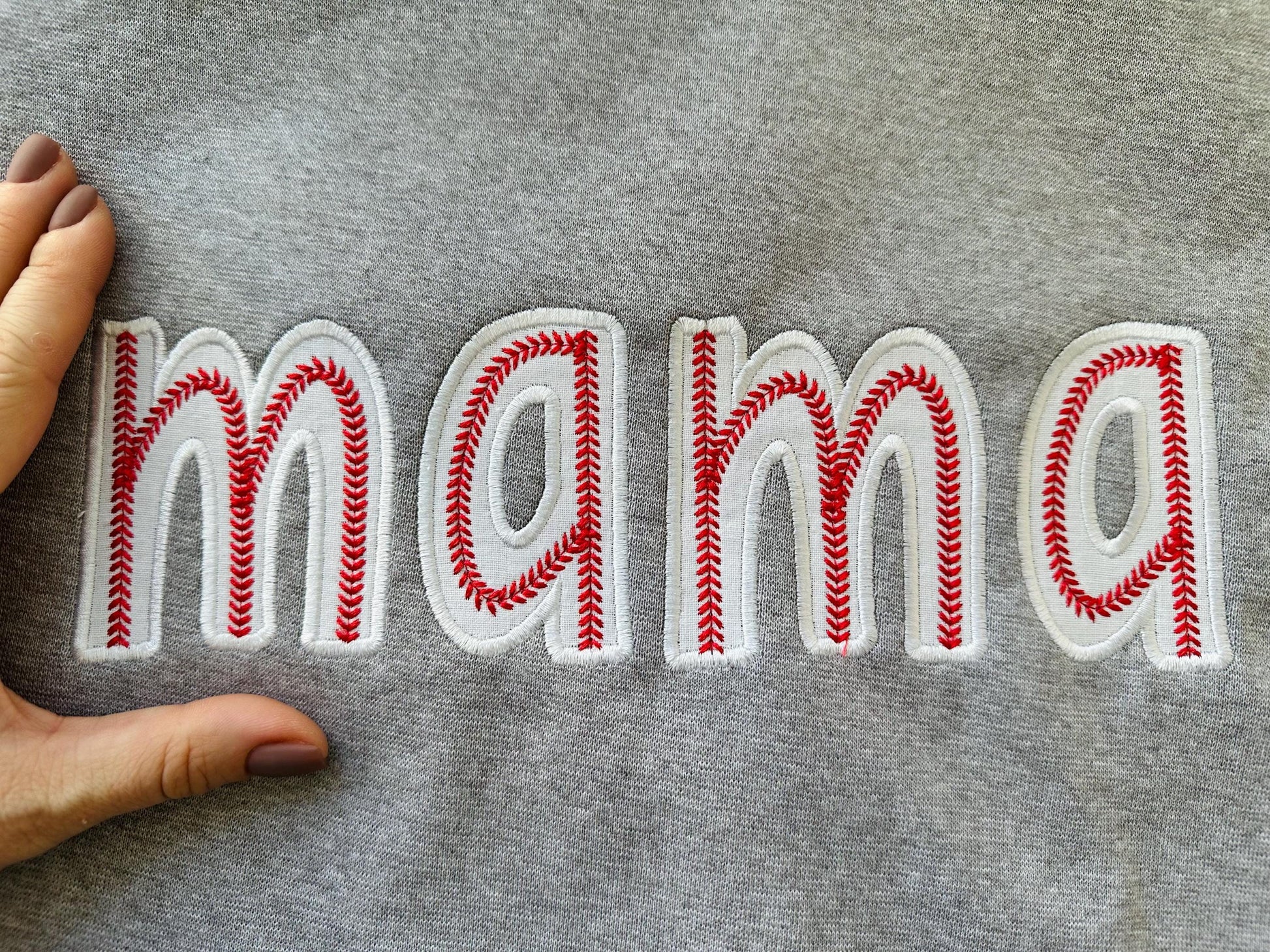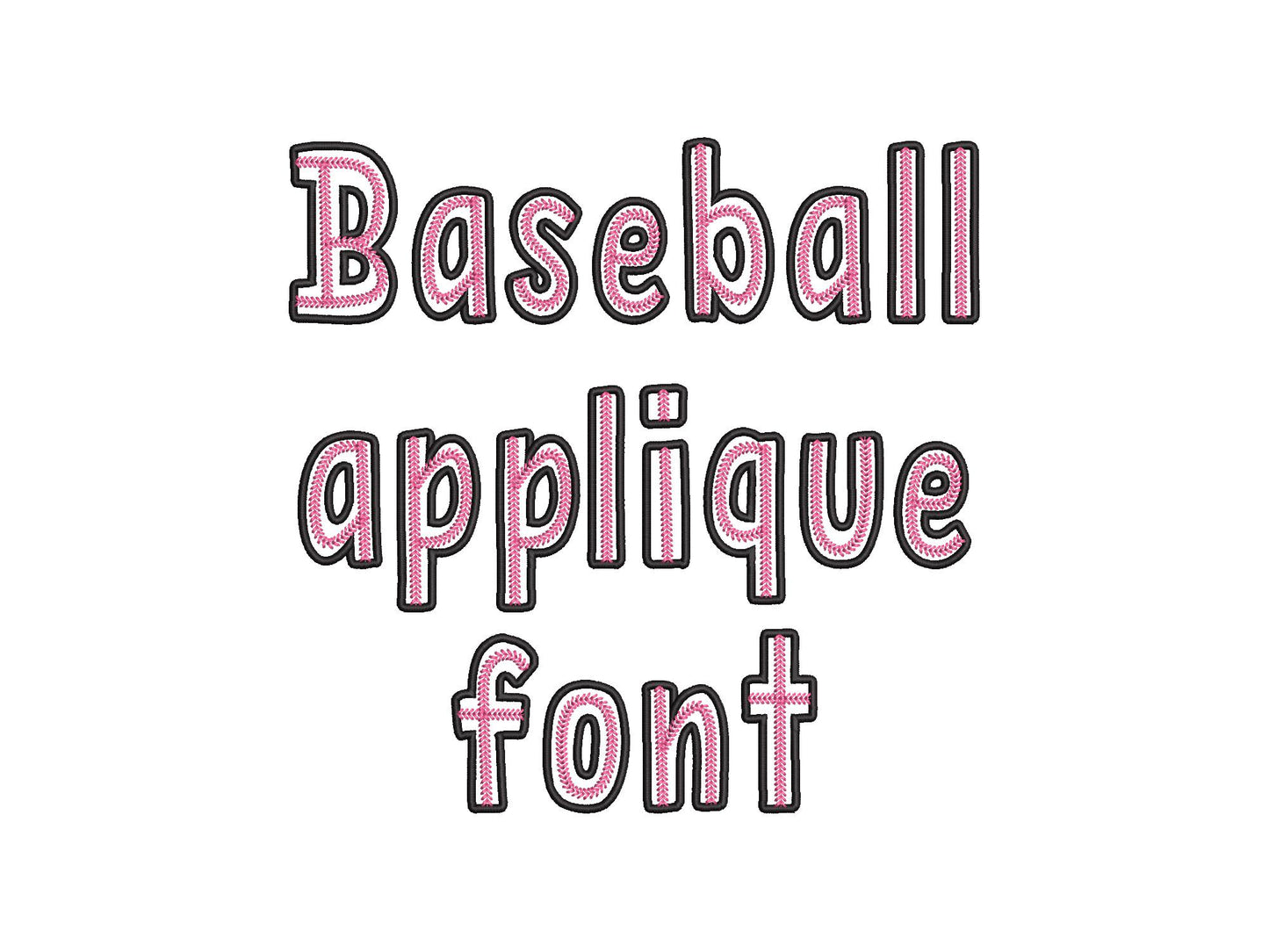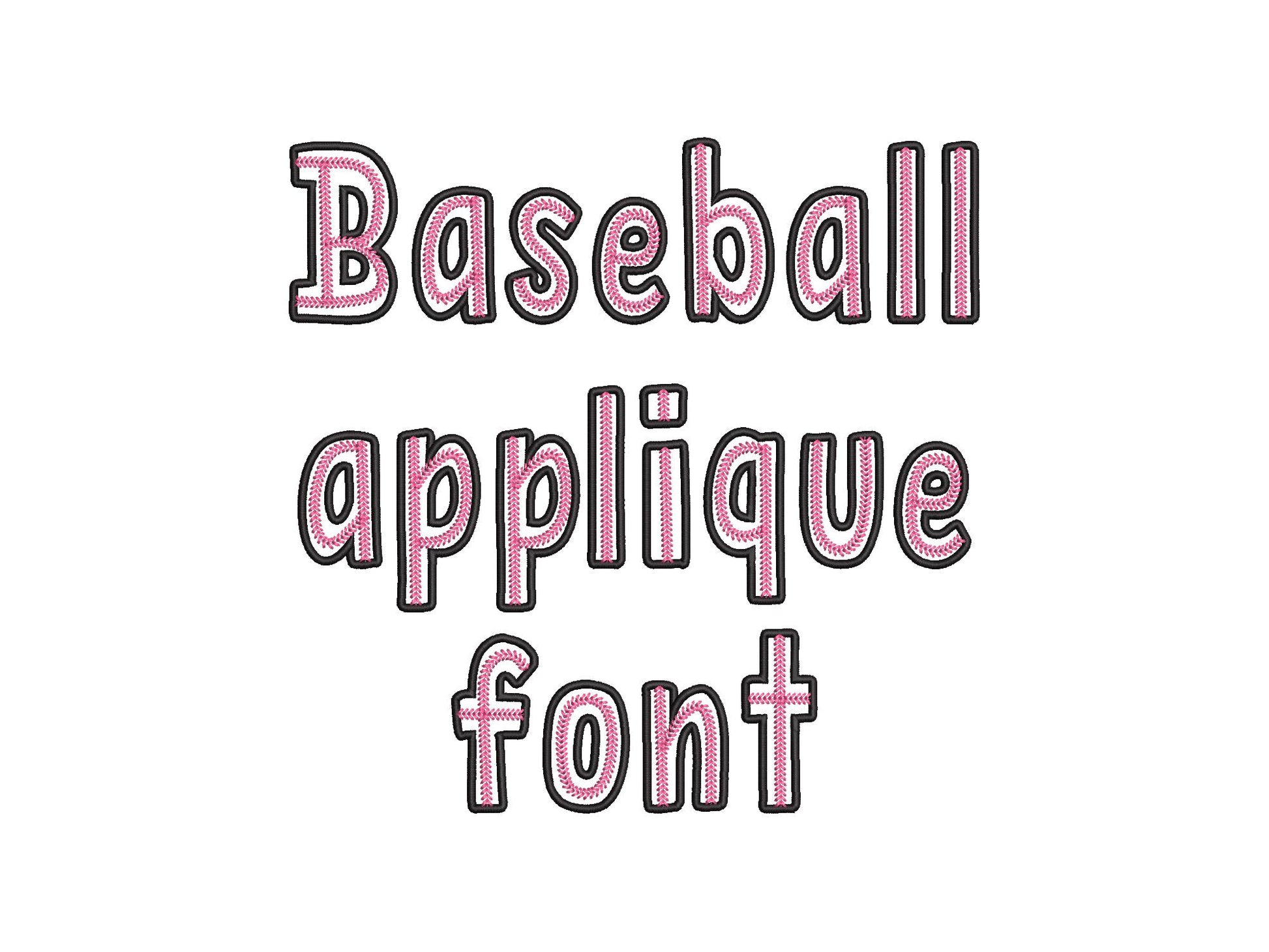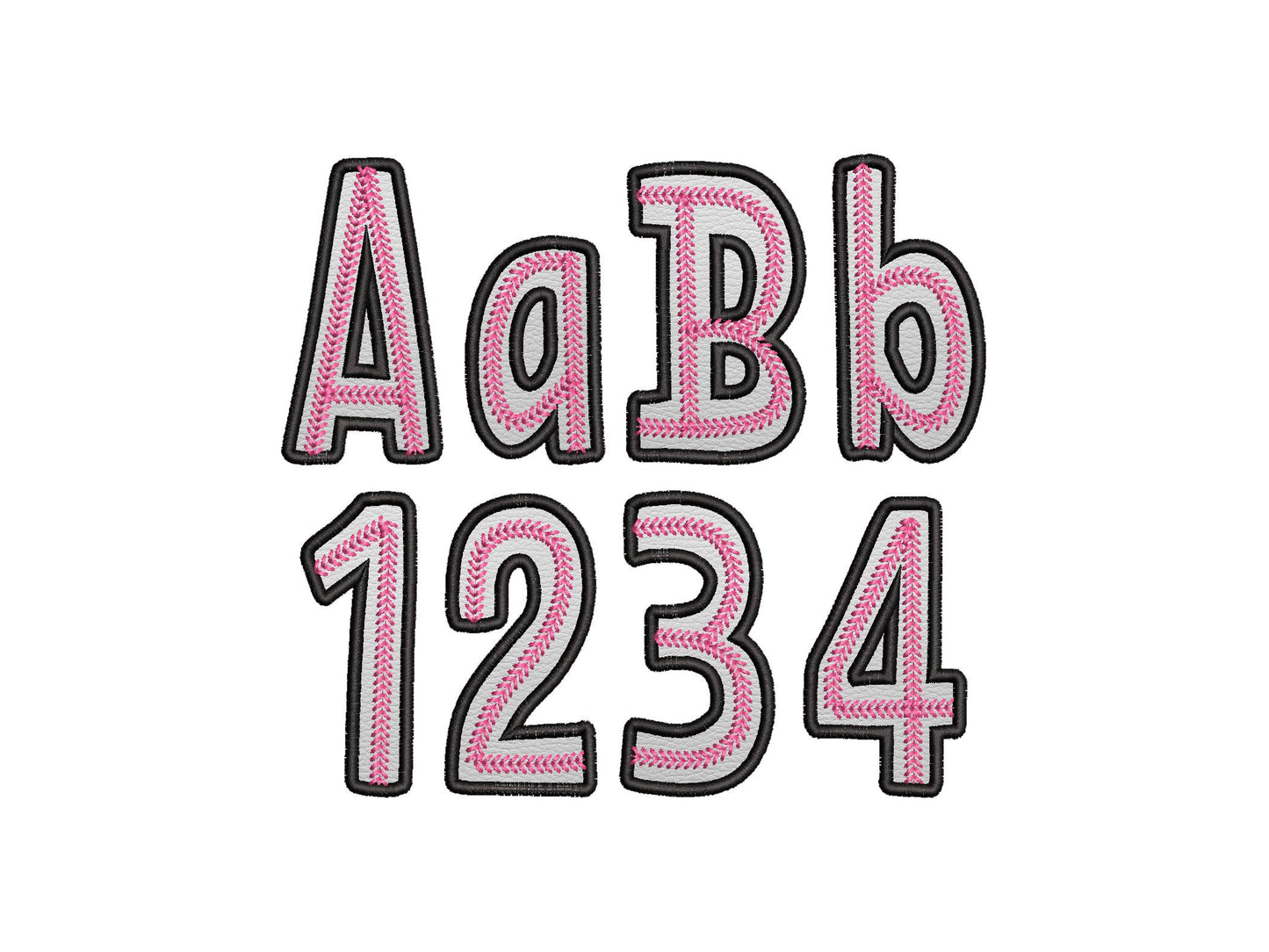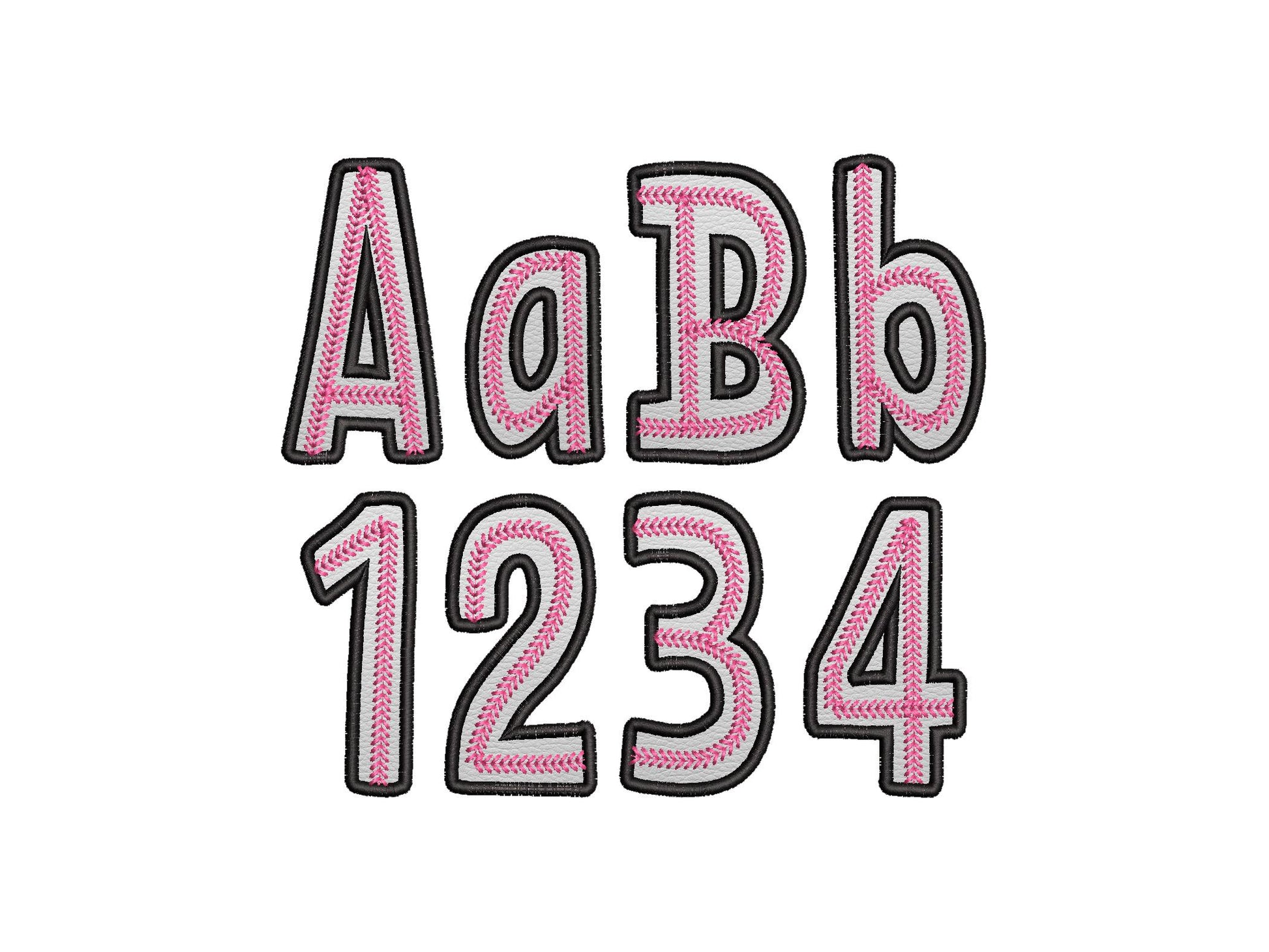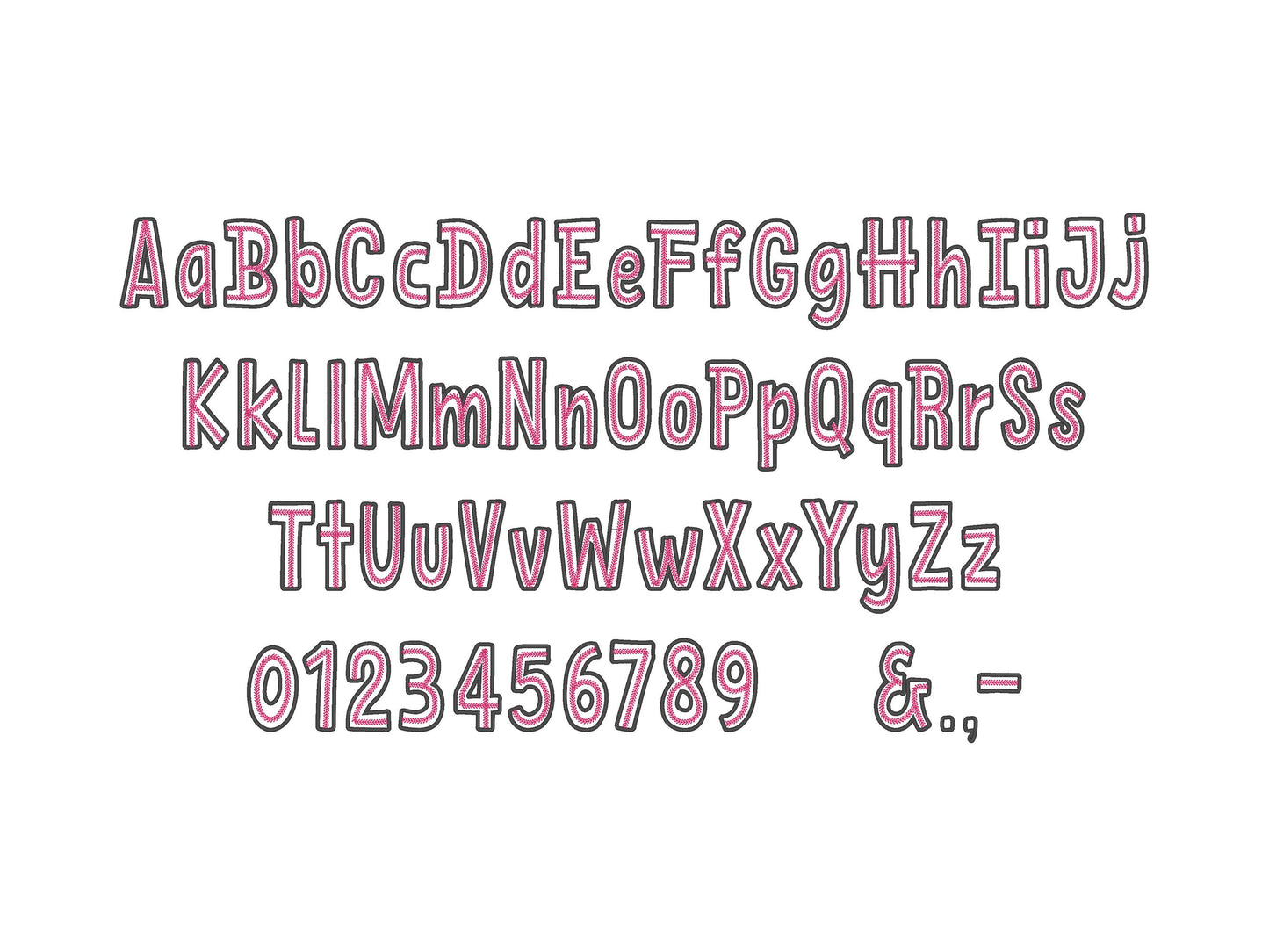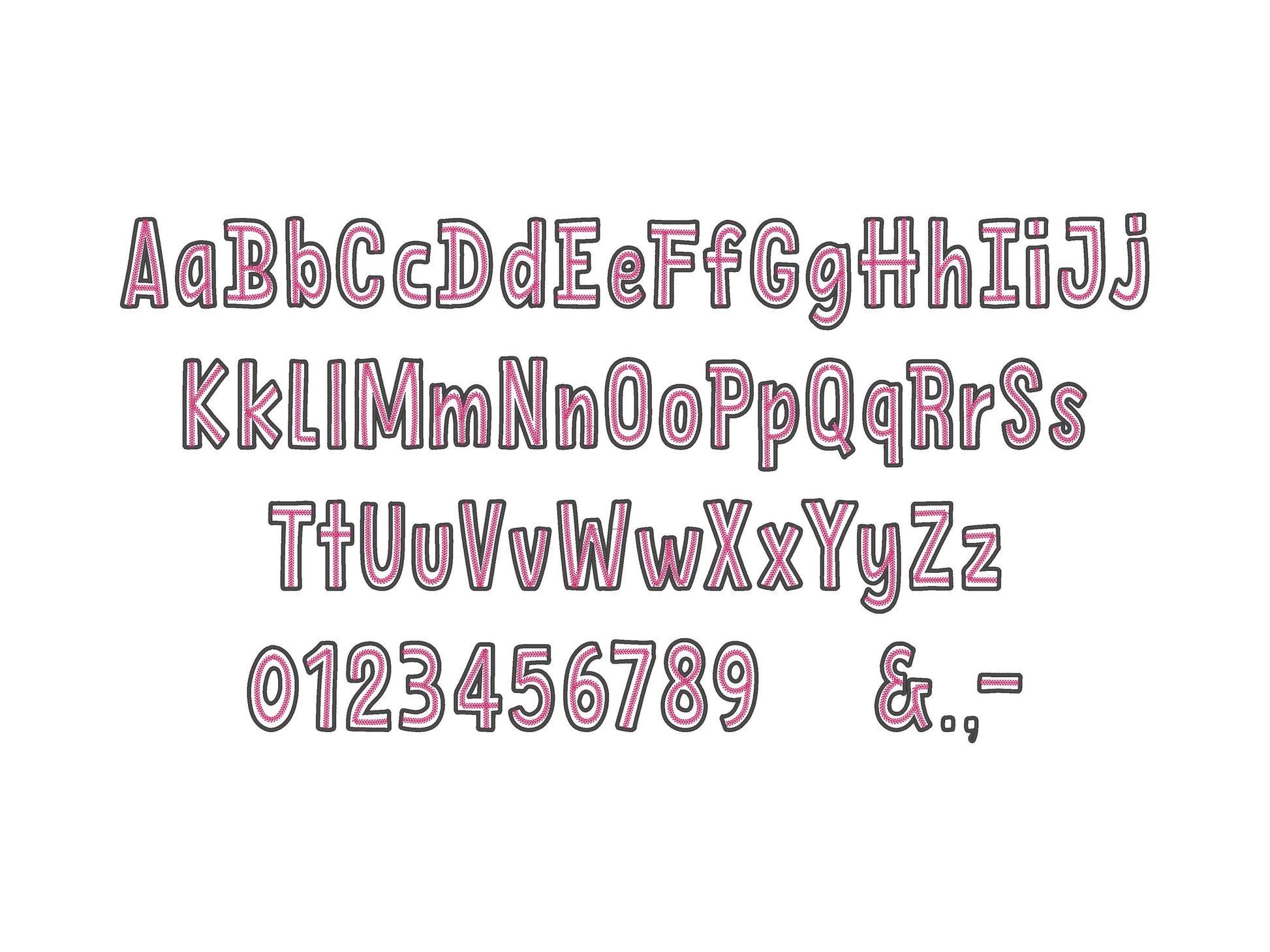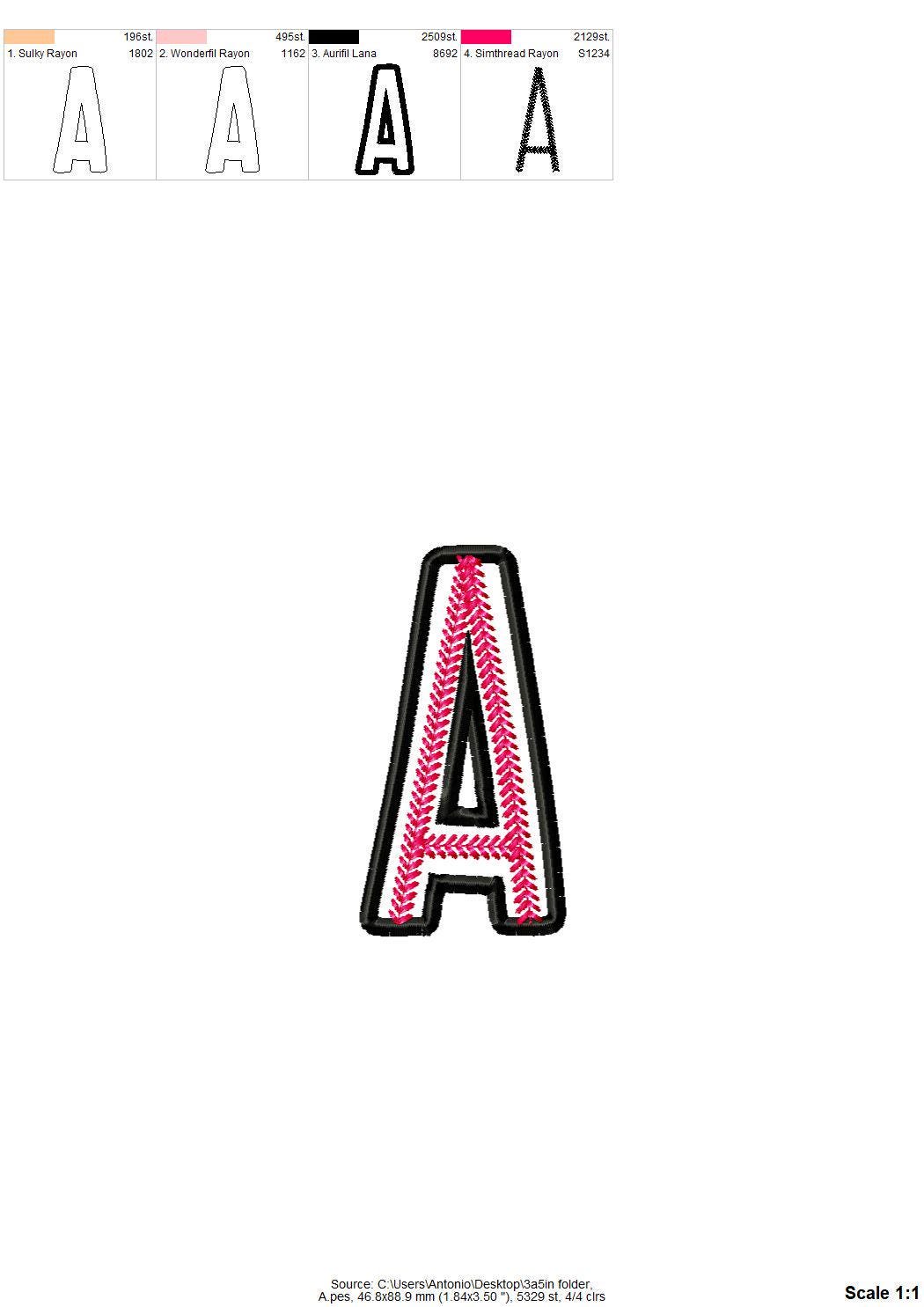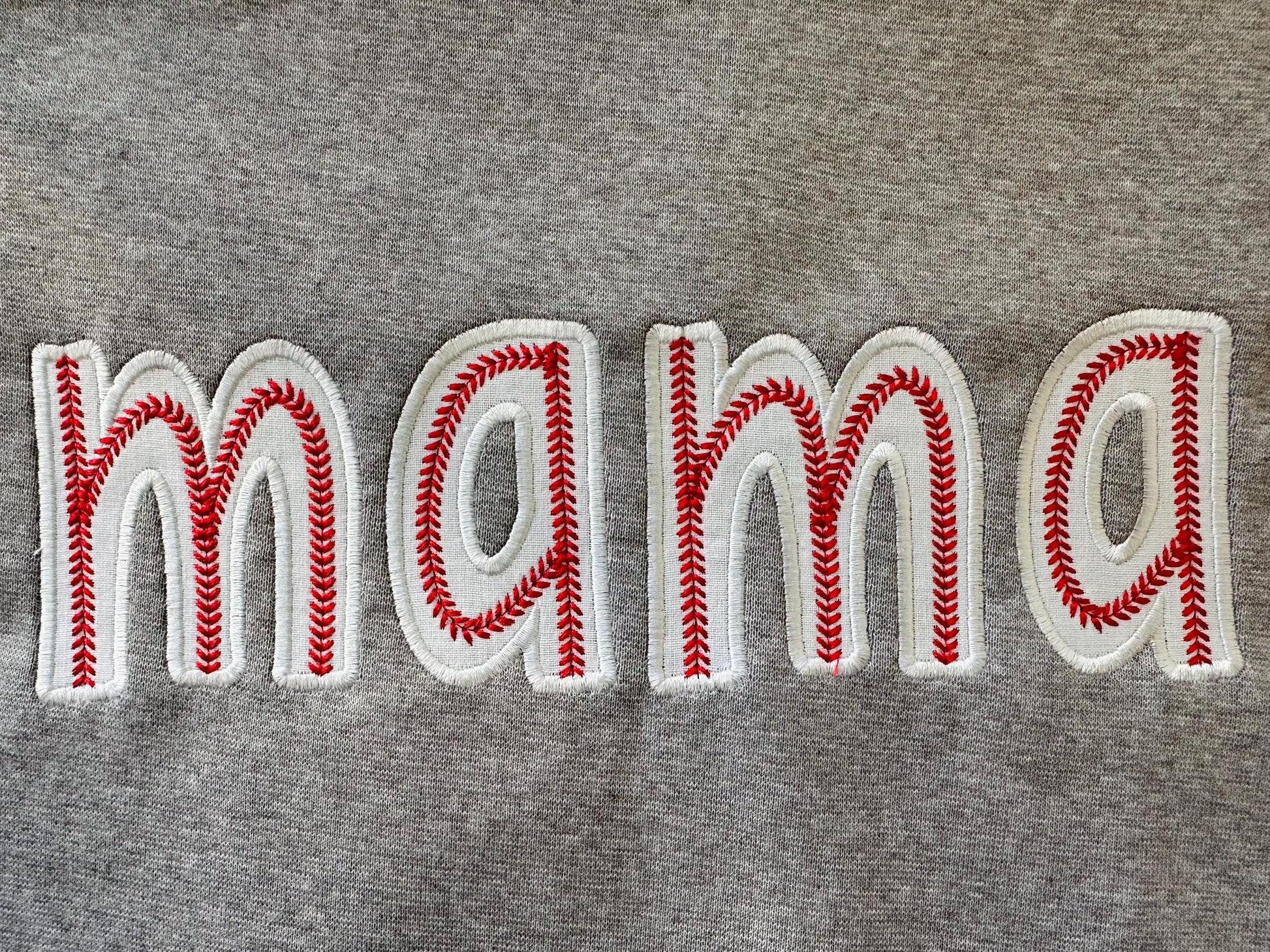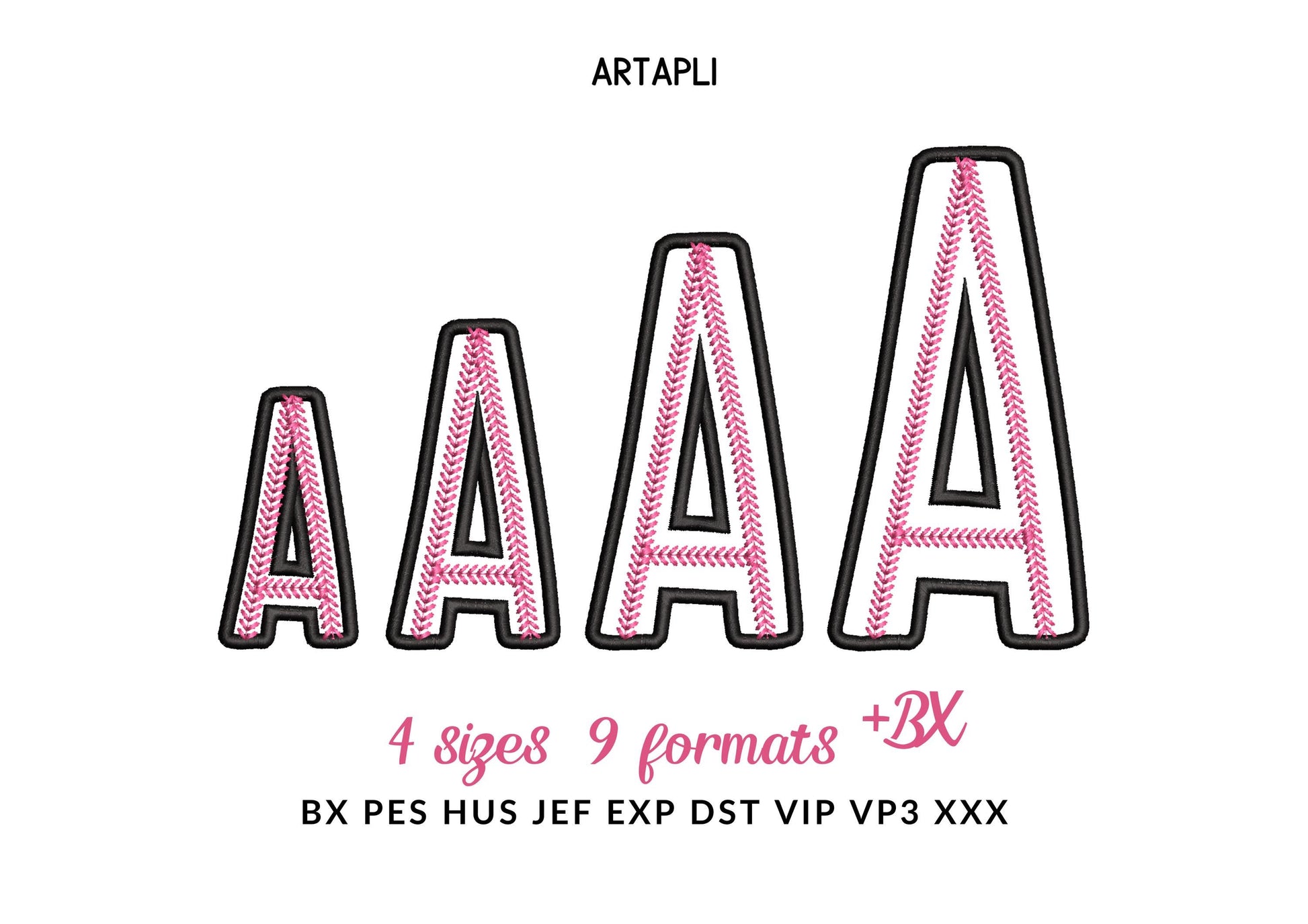
Or click to open the linkAn applique sports font with baseball stitches on every letter. Great for baseball and softball shirts, team names and players' numbers.
Uppercase and lowercase letters, numbers 0 to 9 and punctuation. Four sizes: 2.8, 3.5, 4.4 and 5.3 inches. Applique letters with the baseball stitch as part of the embroidery.